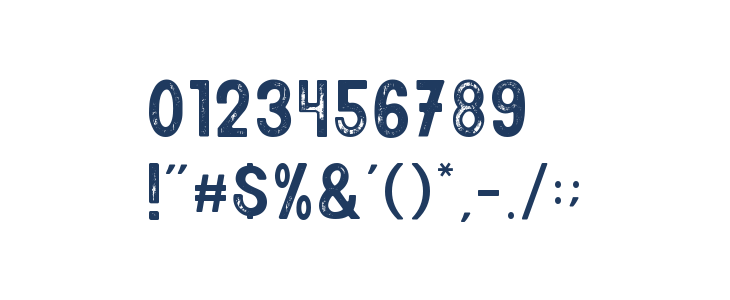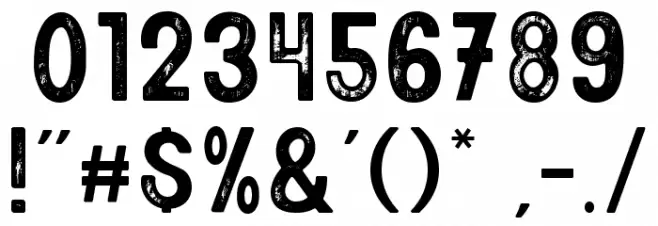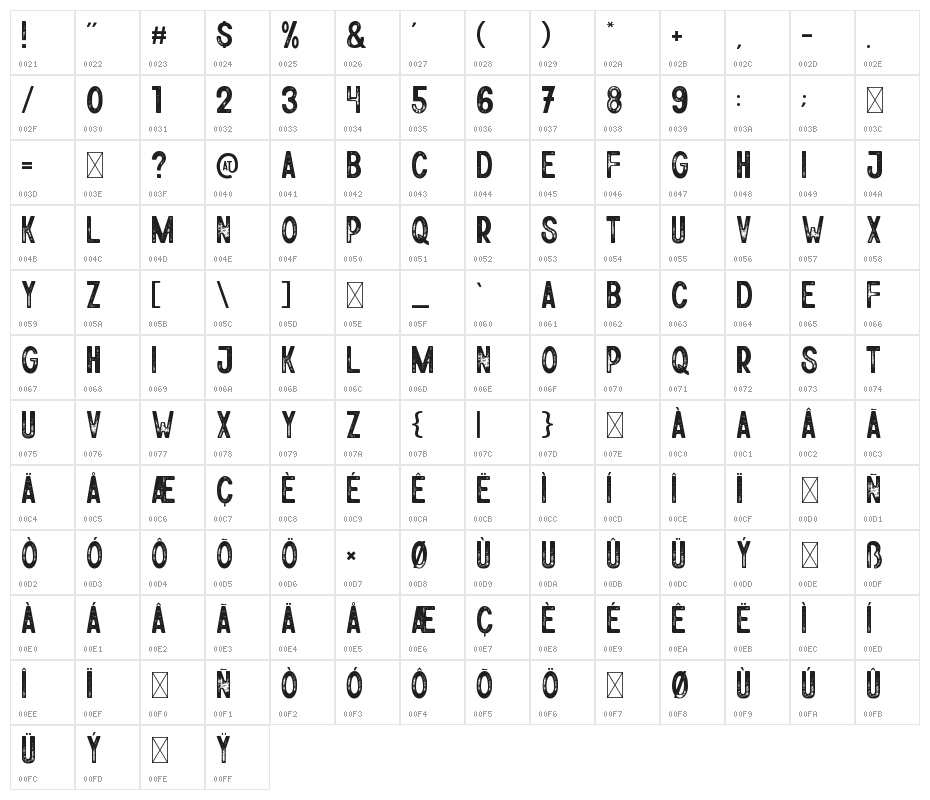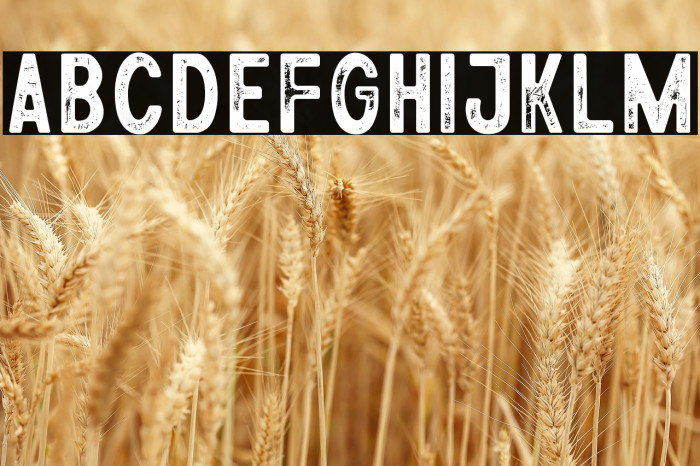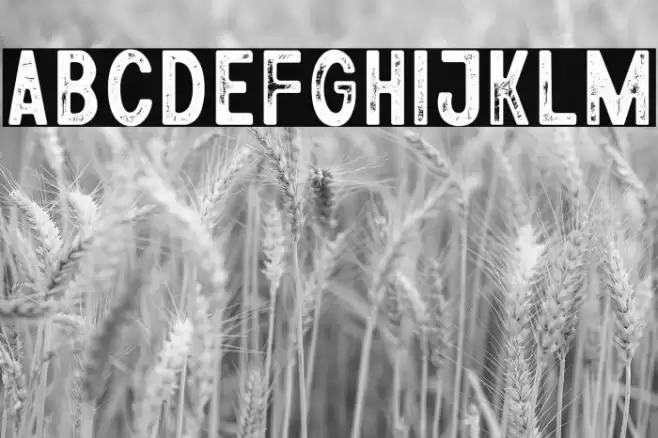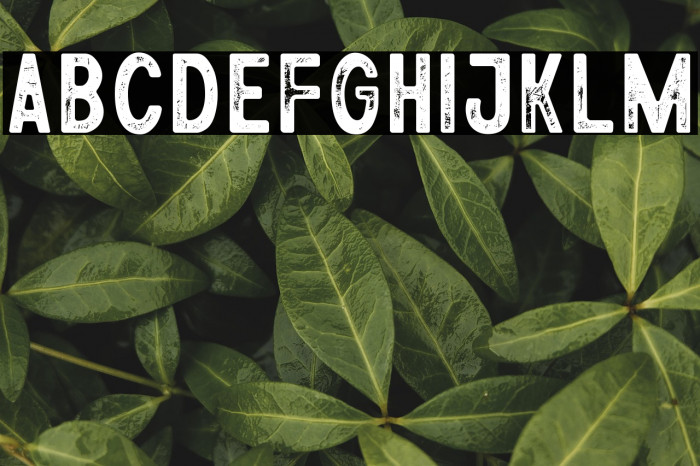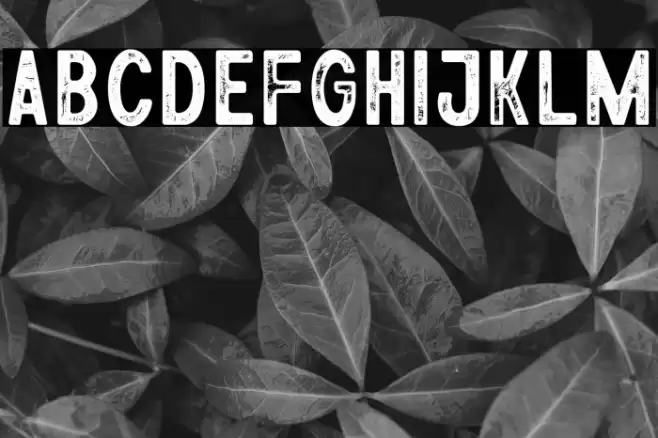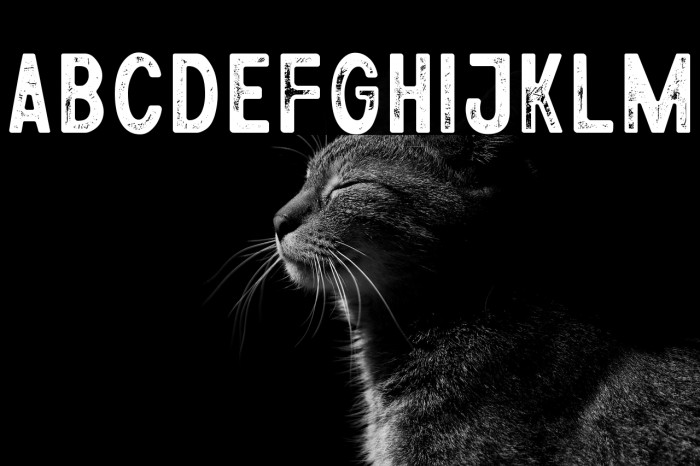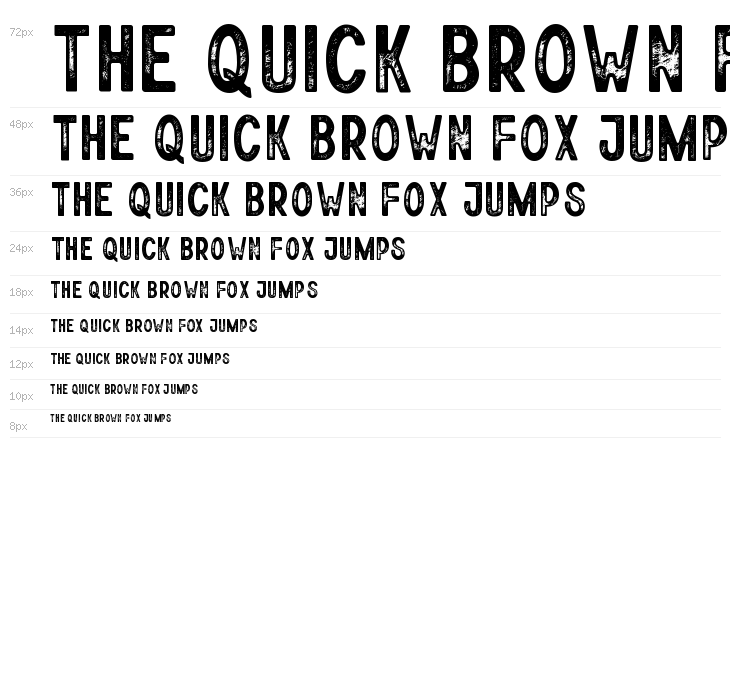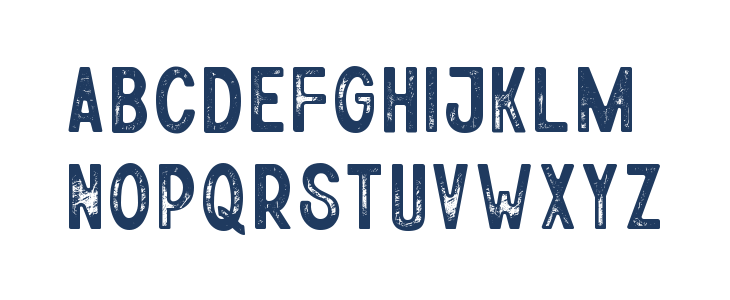
Athena Rustic Font
Athena Rustic Description
This font features a rustic, distressed style that gives it a vintage and worn appearance. The characters are bold and have a rough texture, which adds a handcrafted feel. The uppercase letters are prominent and sturdy, while the numbers and special characters maintain the same rugged aesthetic. This font is ideal for designs that require a touch of nostalgia or a handcrafted look, such as posters, branding, or packaging. Its unique texture makes it stand out, providing a sense of authenticity and character.
Overall StyleVintage
Proposed ProjectsPerfect for vintage posters, branding, packaging, and any design needing a handcrafted touch.